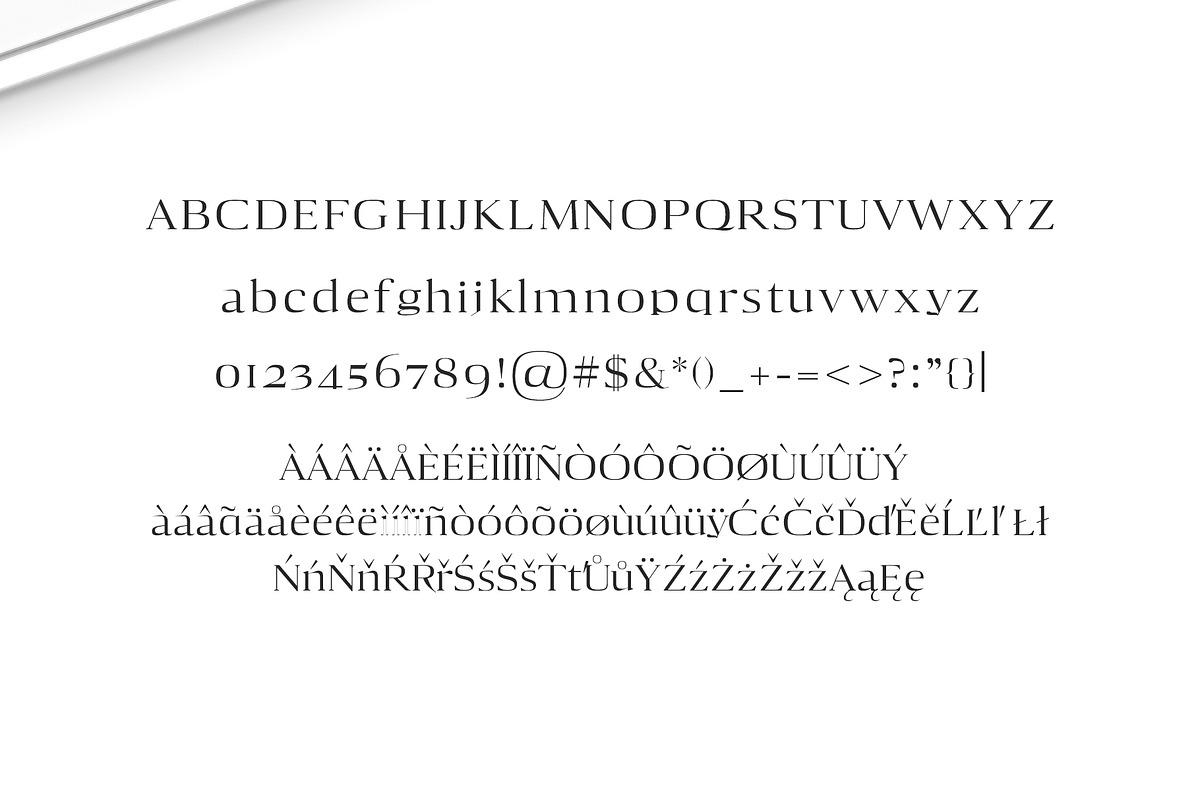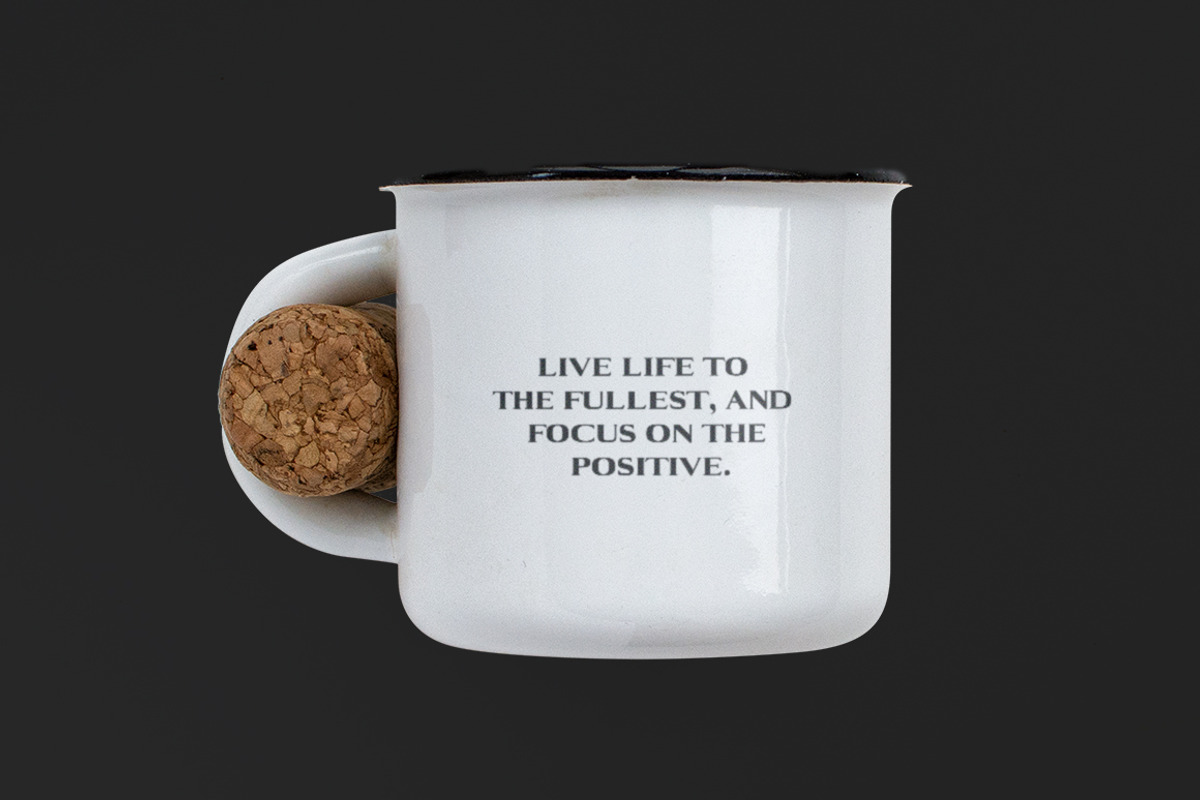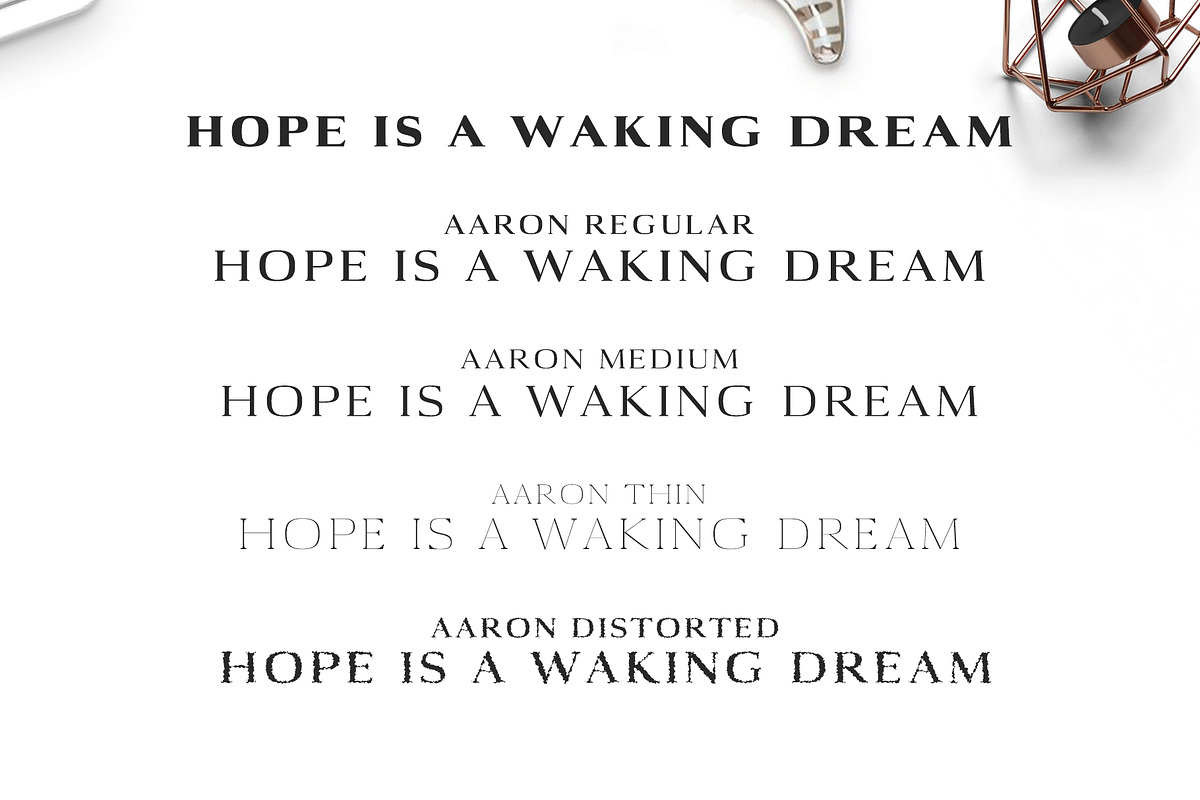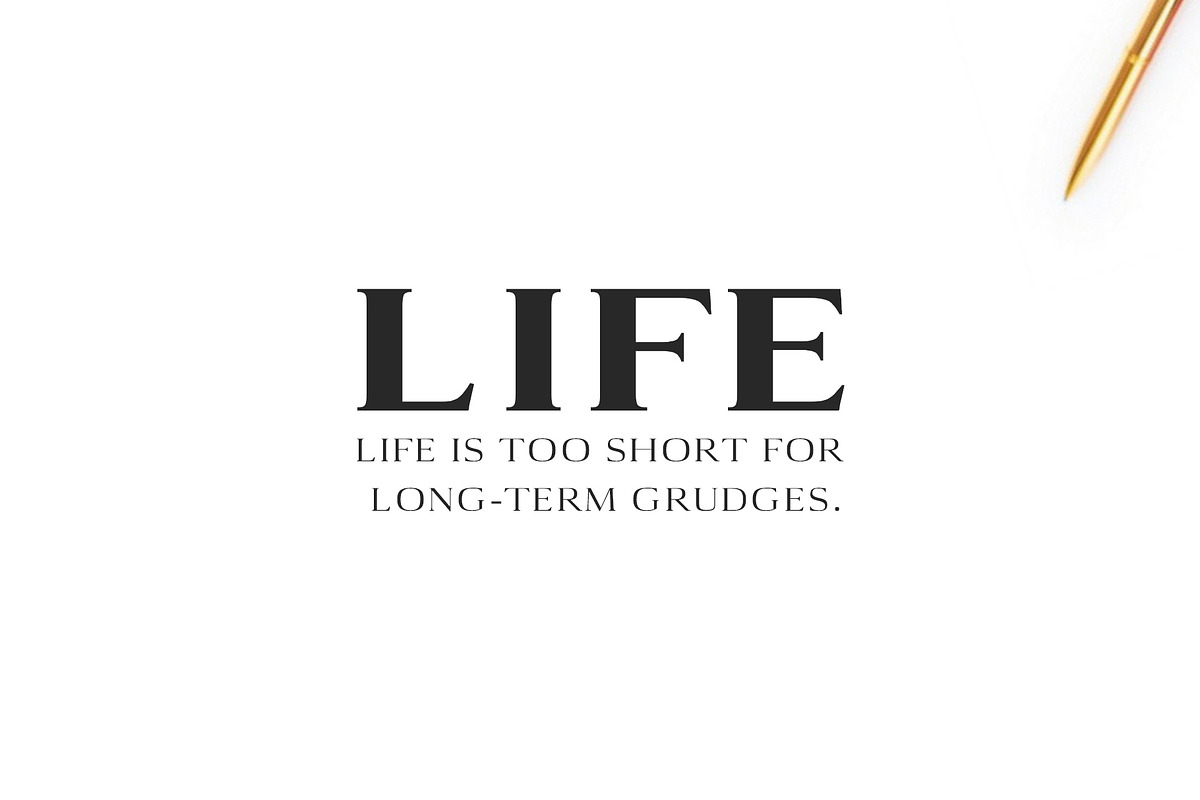
Aaron Serif Font Family
Aaron Serif Font Family by Creativetacos is a font selected for branding, posters, packaging, typography.
- Regular, Black, Medium, Thin, Light, Distorted, Round, Italics
- Aaron Thin
- Aaron Thin Italic
- Aaron Light
- Aaron Light Italic
- Aaron Regular
- Aaron Italic
- Aaron Medium
- Aaron Medium Italic
- Aaron Black
- Aaron Black Italic
Why Aaron Serif Font Family is worth a look
Aaron Serif Font Family by Creativetacos fits naturally into Branding, posters, packaging, typography.